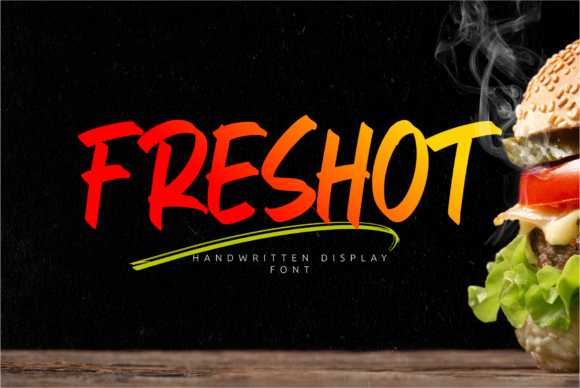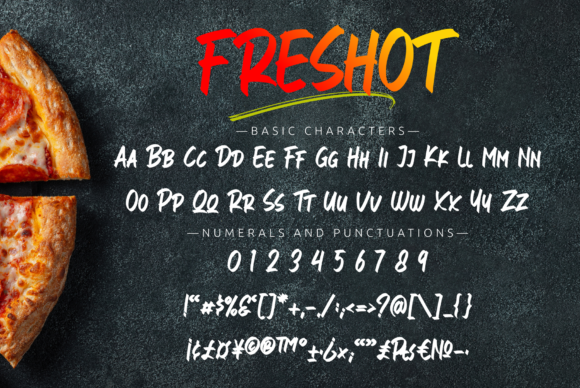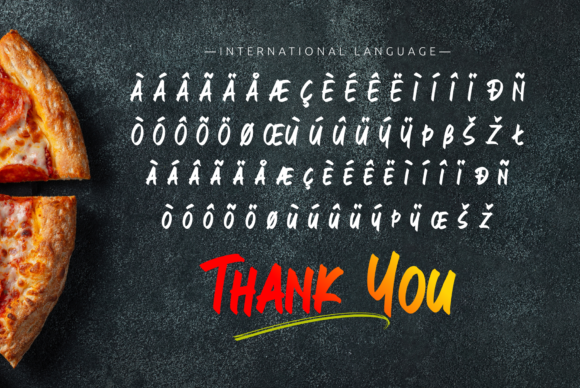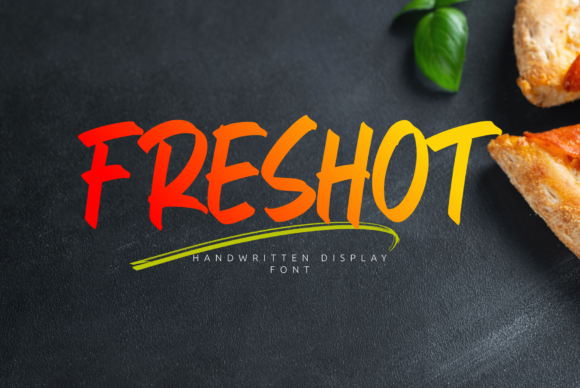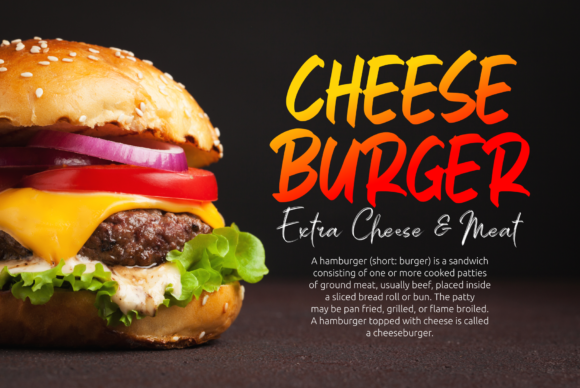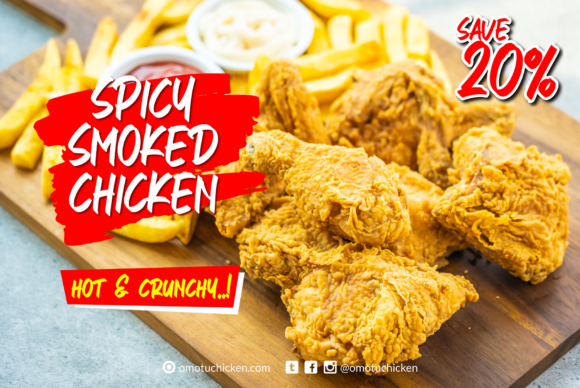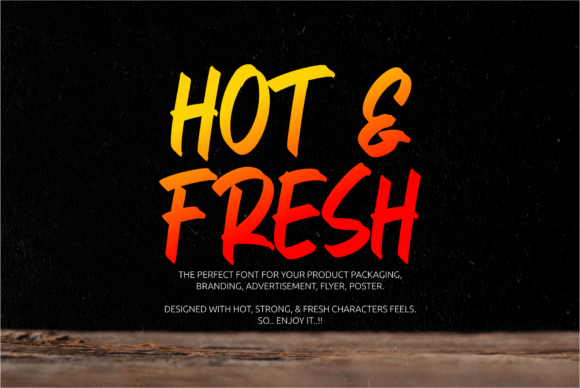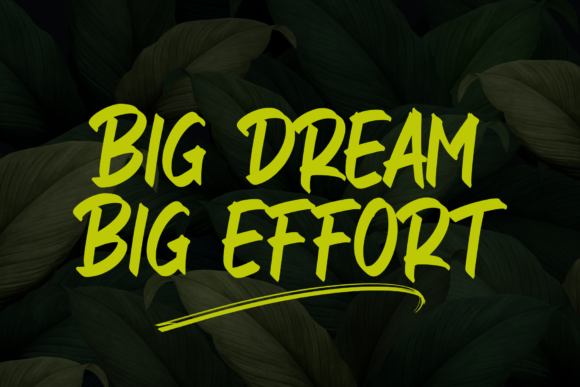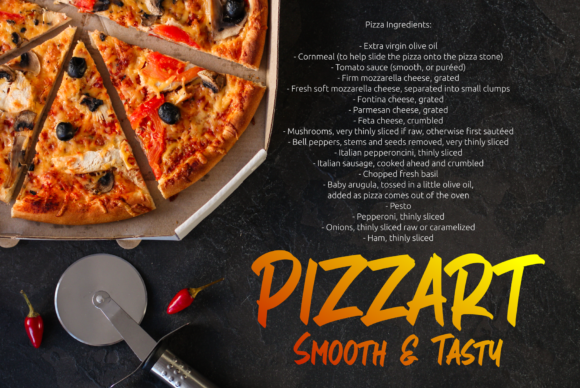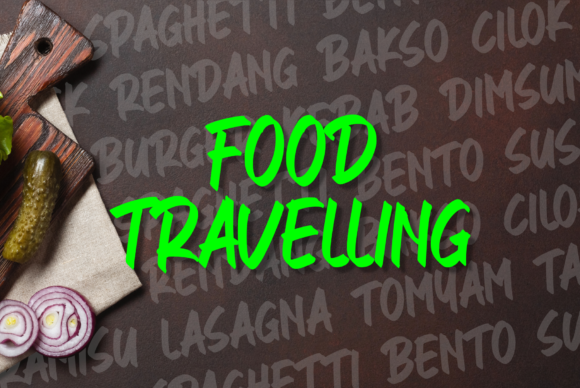
HomeScript FontsFresHot Font Script Fonts FresHot Font FacebookXPinterestWhatsApp FresHot Font Poster 2 FresHot Font Poster 3 FresHot Font Poster 4 FresHot Font Poster 5 FresHot Font Poster 6 FresHot Font Poster 7 FresHot Font Poster 8 FresHot Font Poster 9 FresHot Font Poster 10 FresHot Font Poster 11 FresHot Font Poster 12 About FresHot Font FresHot is a bold and unique script with a fresh and cool vibe. DOWNLOAD ON CREATIVE FABRICAThis font is sold and delivered by Creative Fabrica. Font Canyon may earn a commission if you buy through this link. People also explored Happy Summer Font Rimba Font Wincent Light Font Initial Valentine Font Pentoon Font Braylen Script Font Chocolate Font Eshtin Script Font Dettiruka Font 368 0 TagsFresHot Font Previous articleFabienne FontNext articleAllim Font LEAVE A REPLY Cancel reply Comment: Please enter your comment! Name:* Please enter your name here Email:* You have entered an incorrect email address! Please enter your email address here Website: Save my name, email, and website in this browser for the next time I comment. Personal Use Free Santhony Personal Use Free Read more about this font Hunting Font Personal Use Free Read more about this font Reztop Personal Use Free Read more about this font Roustel Personal Use Free Read more about this font BLOG How to Install and Use Fonts on Windows, macOS, and Web Projects How to Install and Use Fonts on Windows, macOS, and Web Projects Fonts are a crucial part of design and branding. Whether you’re designing a... Fonts That Capture the Spirit of New York City 5 Fonts That Will Dominate Design Trends in 2026 Best Fonts for T-Shirt Design – Top 2025 Picks